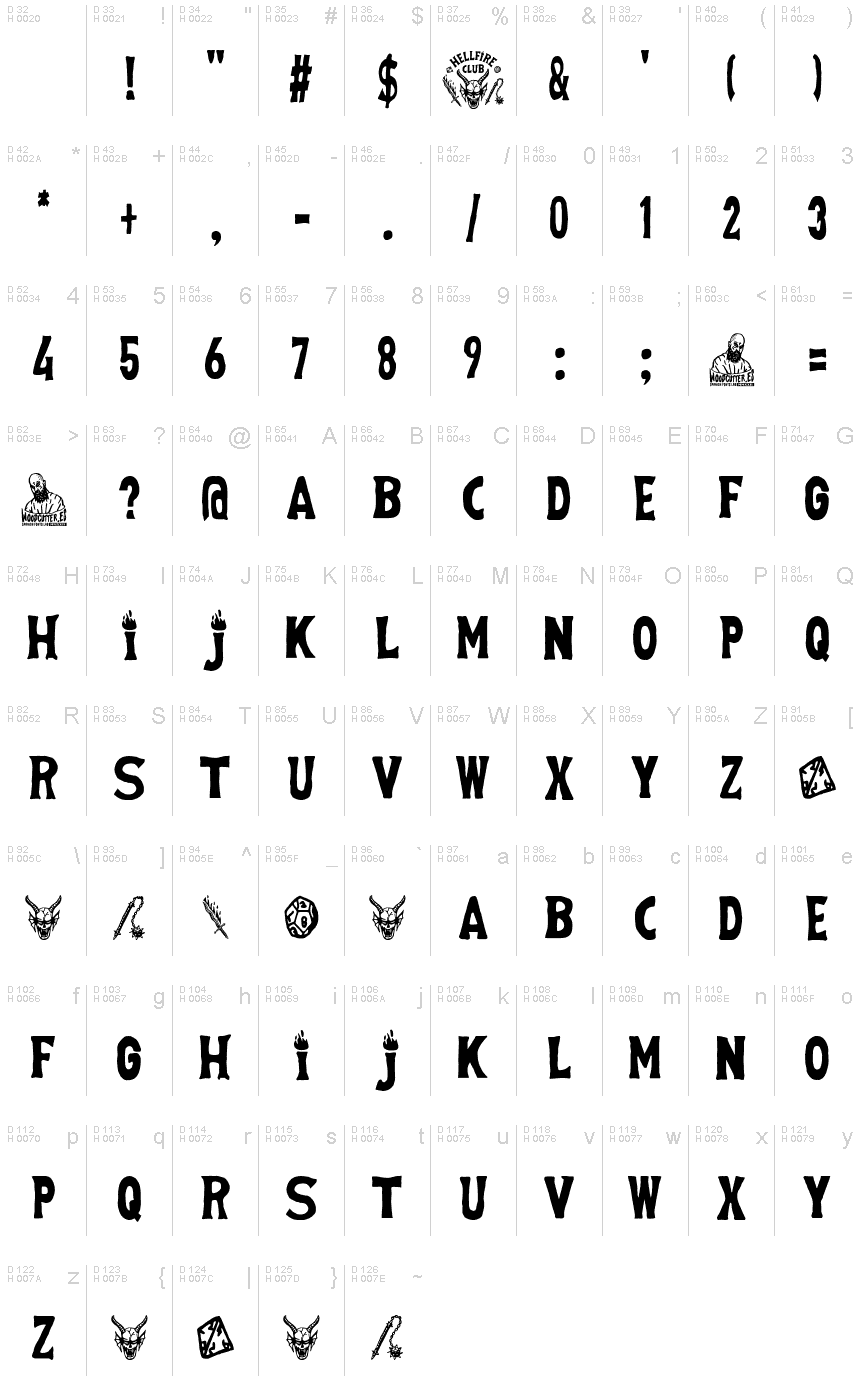
Hellfire Club
Hellfire Club, a bold and semi-condensed display font designed by Woodcutter, brings a playful touch to your projects. With its captivating cartoon style, this font is perfect for children's books, comic strips, and animated videos. Its eye-catching boldness ensures that your headlines and titles stand out in posters and advertisements. Whether you want to create whimsical visuals or add a touch of fun to your branding materials, Hellfire Club is the ideal choice for injecting liveliness into any project. Let this font's unique charm ignite your creativity!